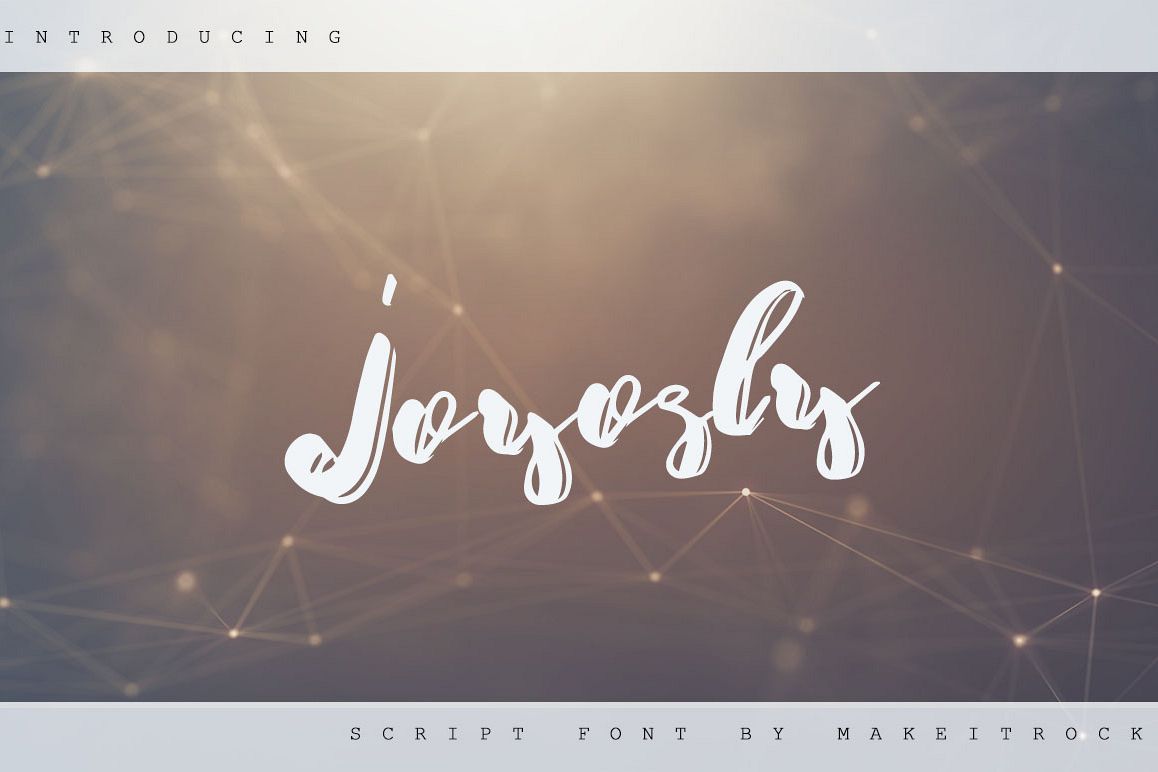
Joyosly
Introducing Joyosly
This handwritten script has been attentively written, with gentle curves to produce a font thats completely distinctive and original. Perfect for adding a elegant and unique touch to your lettering projects and branding.Also with their help, you can create a Wedding lettering or beautiful frame for your home. Or just use for your small business, book covers, stationery, marketing, magazines and more.  Joyosly font built with uppercase, lowercase, numeral, punctuation.